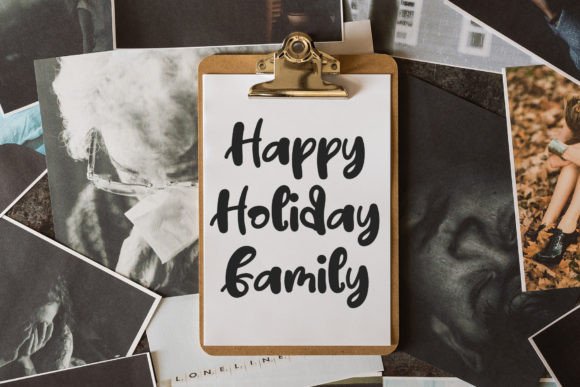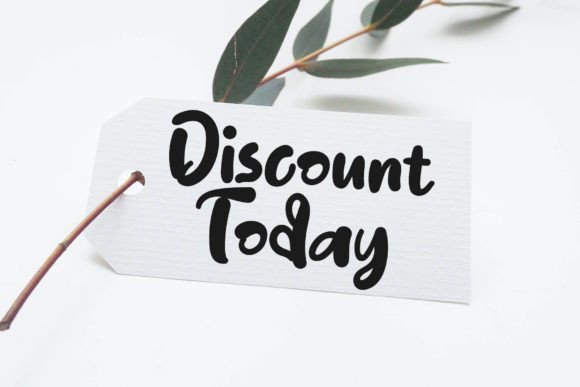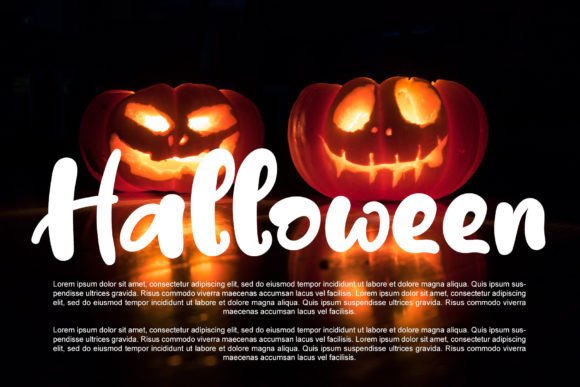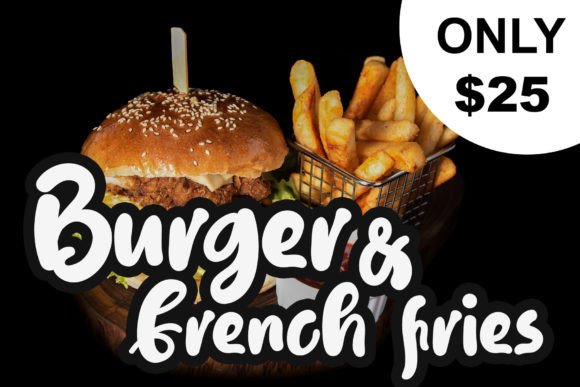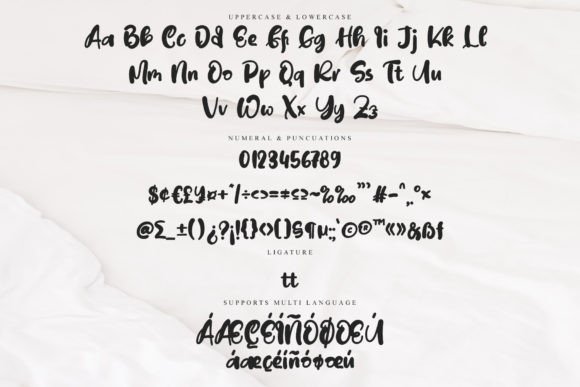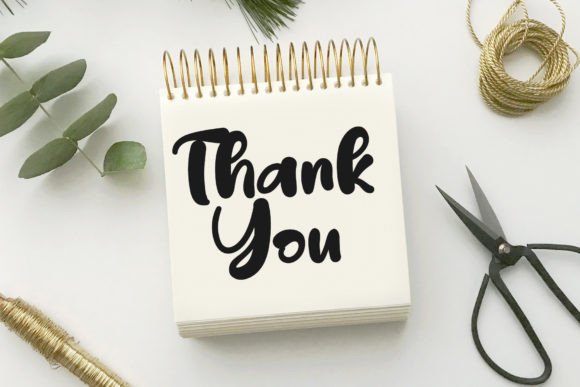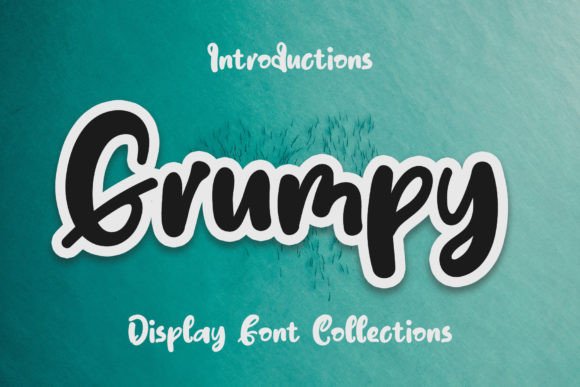
Introducing Grumpy Font: Add a Playful Touch to Your Designs
Are you tired of using the same old fonts in your designs? Do you want to add a playful touch to your creative projects? Look no further than Grumpy Font, a beautifully crafted handwritten font that’s sure to bring a smile to your face. In this article, we’ll take a closer look at Grumpy Font, its features, and how you can use it to take your designs to the next level.
What is Grumpy Font?
Grumpy Font is a display font that’s been masterfully designed to deliver an incredibly playful handwritten feel. With its unique and quirky style, it’s perfect for adding a touch of whimsy to any design project. Whether you’re a designer, crafter, or DIY enthusiast, Grumpy Font is sure to become a true favorite in your font collection.
Features of Grumpy Font
So, what makes Grumpy Font so special? Here are just a few of its standout features:
• Playful Handwritten Style: Grumpy Font has a beautifully crafted handwritten style that’s perfect for adding a personal touch to your designs.
• Unique and Quirky: With its grumpy yet lovable personality, this font is sure to stand out from the crowd and add a touch of whimsy to your designs.
• Highly Versatile: Whether you’re designing a logo, creating a social media graphic, or crafting a handmade project, Grumpy Font is the perfect choice.
• Easy to Use: With its clean and simple design, Grumpy Font is easy to read and use, making it perfect for designers of all skill levels.
How to Use Grumpy Font in Your Designs
Now that we’ve covered the features of Grumpy Font, let’s take a look at how you can use it in your designs. Here are a few ideas to get you started:
• Logos and Branding: Use Grumpy Font to create a unique and memorable logo that stands out from the crowd.
• Social Media Graphics: Add a playful touch to your social media graphics with Grumpy Font, perfect for creating eye-catching posts and stories.
• Handmade Projects: Use Grumpy Font to add a personal touch to your handmade projects, such as craft labels, cards, and invitations.
• Web Design: Add a touch of whimsy to your website with Grumpy Font, perfect for creating a fun and playful online presence.
Why Choose Grumpy Font?
With so many fonts to choose from, why should you choose Grumpy Font? Here are just a few reasons:
• Unique Style: Grumpy Font has a unique and quirky style that’s sure to stand out from the crowd.
• High-Quality Design: With its clean and simple design, Grumpy Font is easy to read and use, making it perfect for designers of all skill levels.
• Versatility: Whether you’re designing a logo, creating a social media graphic, or crafting a handmade project, Grumpy Font is the perfect choice.
• Playful Personality: Grumpy Font has a playful and grumpy personality that’s sure to bring a smile to your face and add a touch of whimsy to your designs.
In conclusion, Grumpy Font is a beautifully crafted handwritten font that’s perfect for adding a playful touch to your designs. With its unique and quirky style, highly versatile design, and easy-to-use format, it’s sure to become a true favorite in your font collection. Whether you’re a designer, crafter, or DIY enthusiast, Grumpy Font is the perfect choice for any creative project. So why wait? Download Grumpy Font today and start adding a playful touch to your designs!